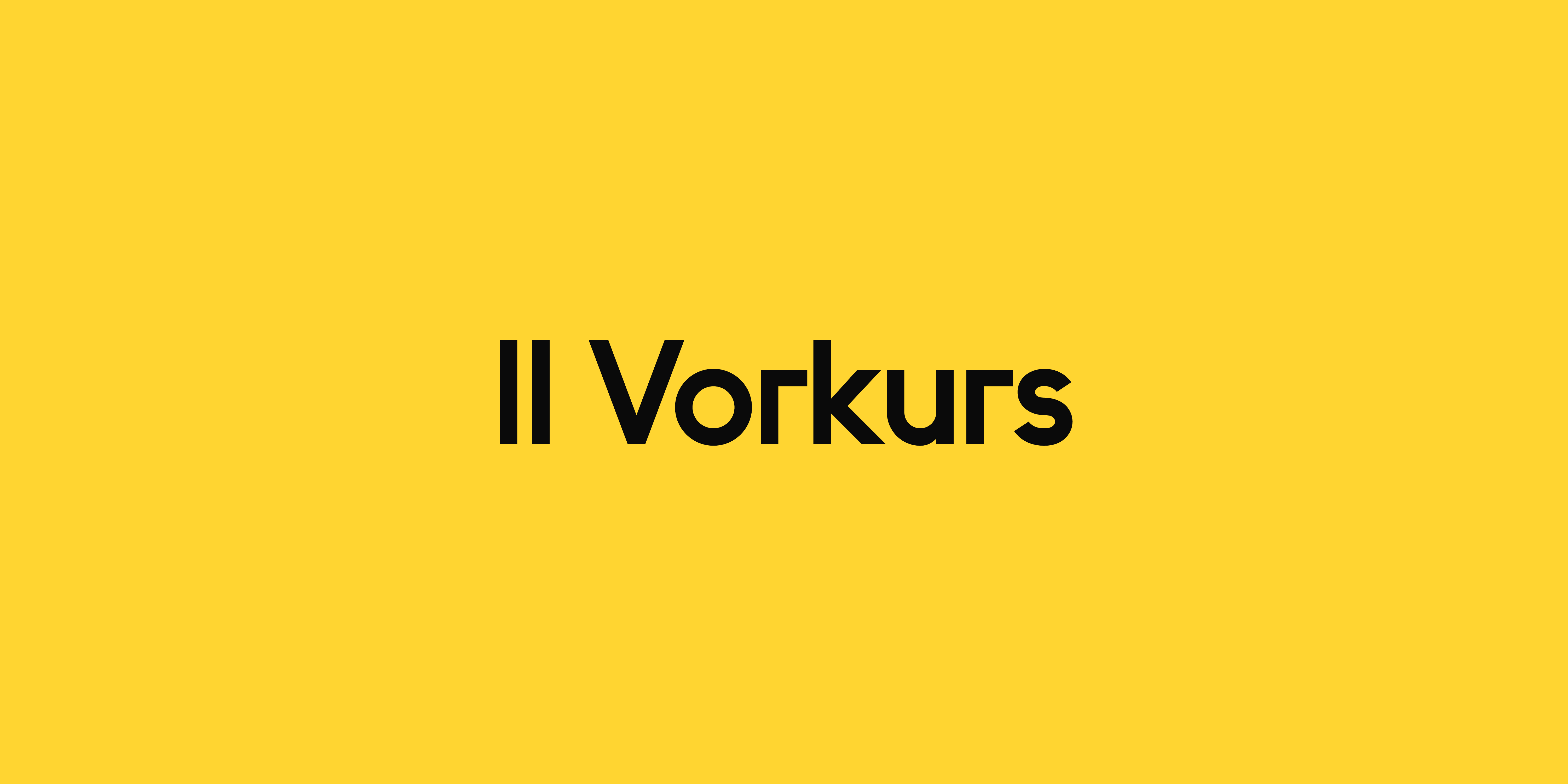
The II Vorkurs Font is incredibly versatile, making it an excellent choice for a wide array of design projects that aim to convey a sense of structured minimalism, modernist artistry, and clean, geometric precision. Imagine it bringing a sharp, contemporary edge to avant-garde art exhibition catalogs, making innovative architectural blueprints pop with clarity, or adding a sophisticated, understated touch to branding for high-tech startups. It's also fantastic for crafting crisp editorial layouts for design journals, unique event invitations for gallery openings, and impactful signage that prioritizes form and function. Its inherent order and distinctive, often experimental, letterforms make it perfect for any project striving to communicate intellectual rigor, artistic exploration, and a forward-thinking design philosophy.
What makes II Vorkurs Font so exciting is its unique ability to blend the principles of early 20th-century design movements, like the Bauhaus, with modern digital clarity. It often features simplified, geometric shapes, a strong grid-based structure, and a deliberate absence of extraneous detail, giving it an immediate sense of conceptual depth and functional beauty. This font doesn't just display text; it embodies a design philosophy, making your message feel purposeful, intellectually engaging, and effortlessly modern. Its balance of stark visual presence and remarkable legibility ensures that your designs are not only visually compelling but also effectively convey their intended message. It's a typeface that brings an atmosphere of structured innovation and artistic discipline to your typography, guaranteeing your projects leave a powerful and memorable impression.
The II Vorkurs Font family typically includes a range of weights and stylistic alternatives to provide extensive creative flexibility. While specific options can differ, you can generally expect to find alternatives like Regular, Bold, and potentially a Light or Stencil version, each emphasizing its distinctive geometric qualities. These different weights and stylistic sets allow you to create dynamic visual hierarchies and add nuanced artistic flair to your typography, ensuring a cohesive and thoughtfully designed outcome. This comprehensive family support ensures that whether you need a strong, impactful headline or a subtle, precise accent, II Vorkurs Font Free Download offers the perfect elements to bring your modernist vision to life.